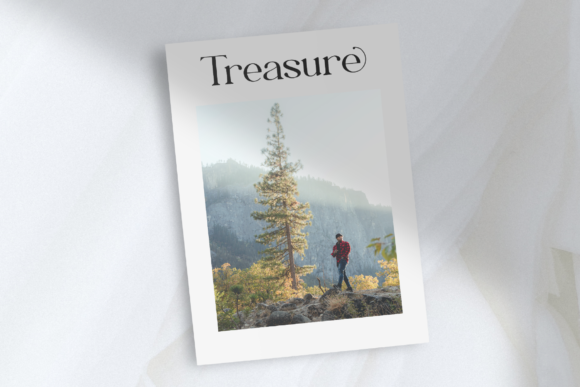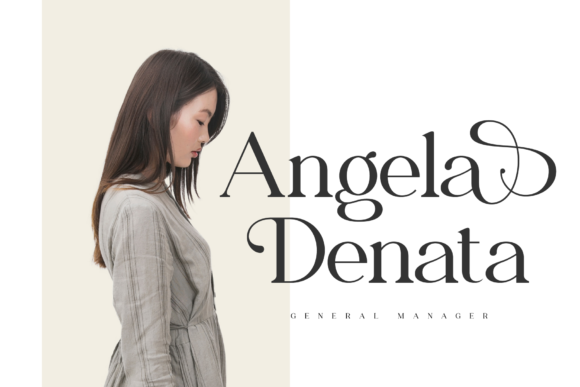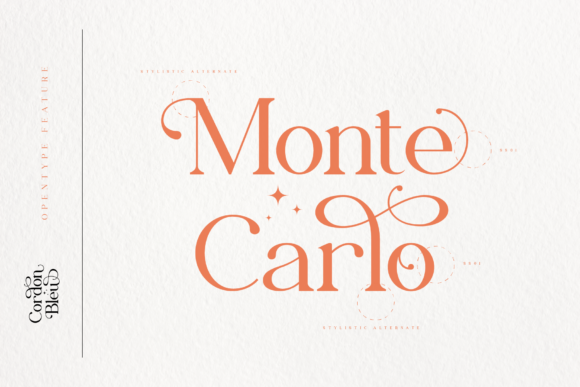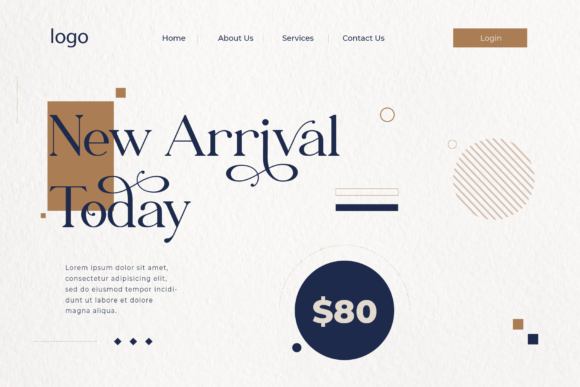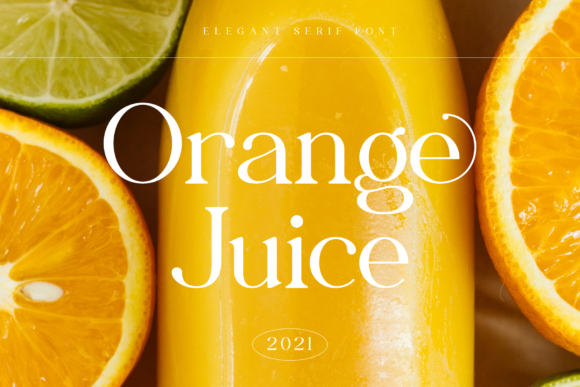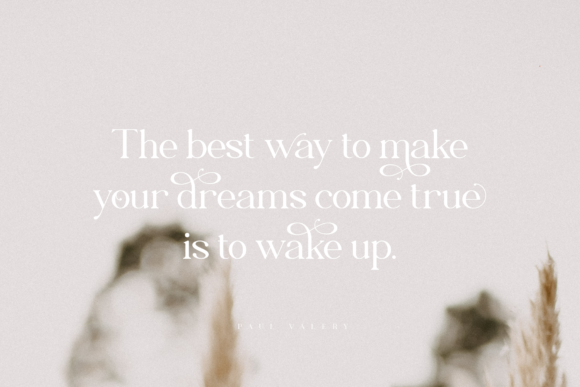
The Cordon Bleu Font: Elevate Your Designs with Elegance
I’ll never forget the time I was working on a branding project for a high-end culinary client. I had spent hours perfecting the logo concept, but something was missing – the right font. I scoured the internet, tried countless combinations, and still, nothing seemed to fit. That’s when I stumbled upon the Cordon Bleu font. Its modern, elegant serif design and unique characters instantly elevated my work, and I knew I’d found the perfect match. In this article, I’ll share my experience with the Cordon Bleu font, its features, and how to make the most of it in your designs.
- ✨ Elegant and modern serif design: The Cordon Bleu font boasts a sophisticated look that’s perfect for high-end branding, magazines, and posters.
- ✅ PUA encoded for easy access: With PUA encoding, you can easily access all glyphs and swashes, making it a breeze to add unique touches to your designs.
- 💫 Unique characters and swashes: The font’s distinctive characters and swashes add a touch of elegance and whimsy to any design.
While the Cordon Bleu font is exceptional, there are a few minor quirks to be aware of:
- 🤔 Some characters may require manual kerning: As with any font, you may need to adjust kerning for certain character combinations to achieve optimal results.
- ⚠️ Not all platforms support OpenType features: Depending on the platform or software you’re using, you might not have access to all the font’s OpenType features.
The Story Behind Cordon Bleu
The Cordon Bleu font was inspired by the rich culinary heritage of France. Its designer aimed to create a font that exuded elegance, sophistication, and a touch of whimsy. The result is a font that’s perfect for adding a dash of French flair to your designs.